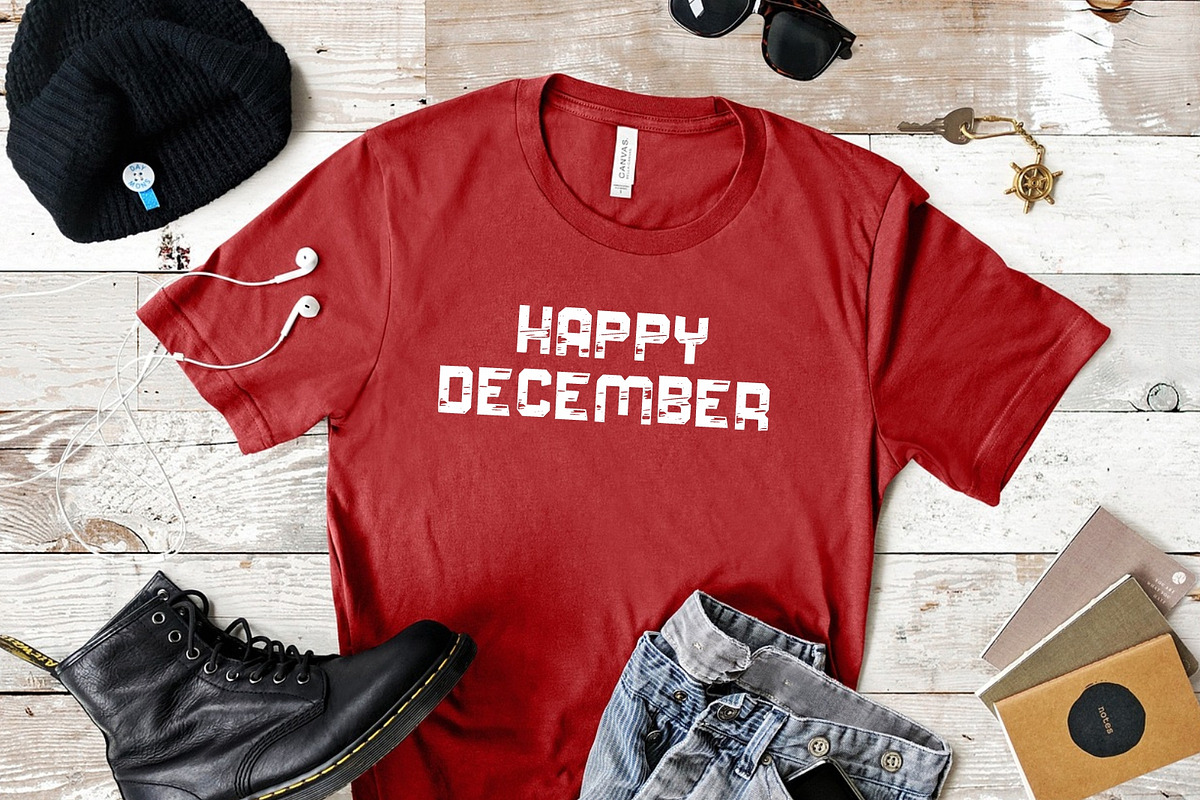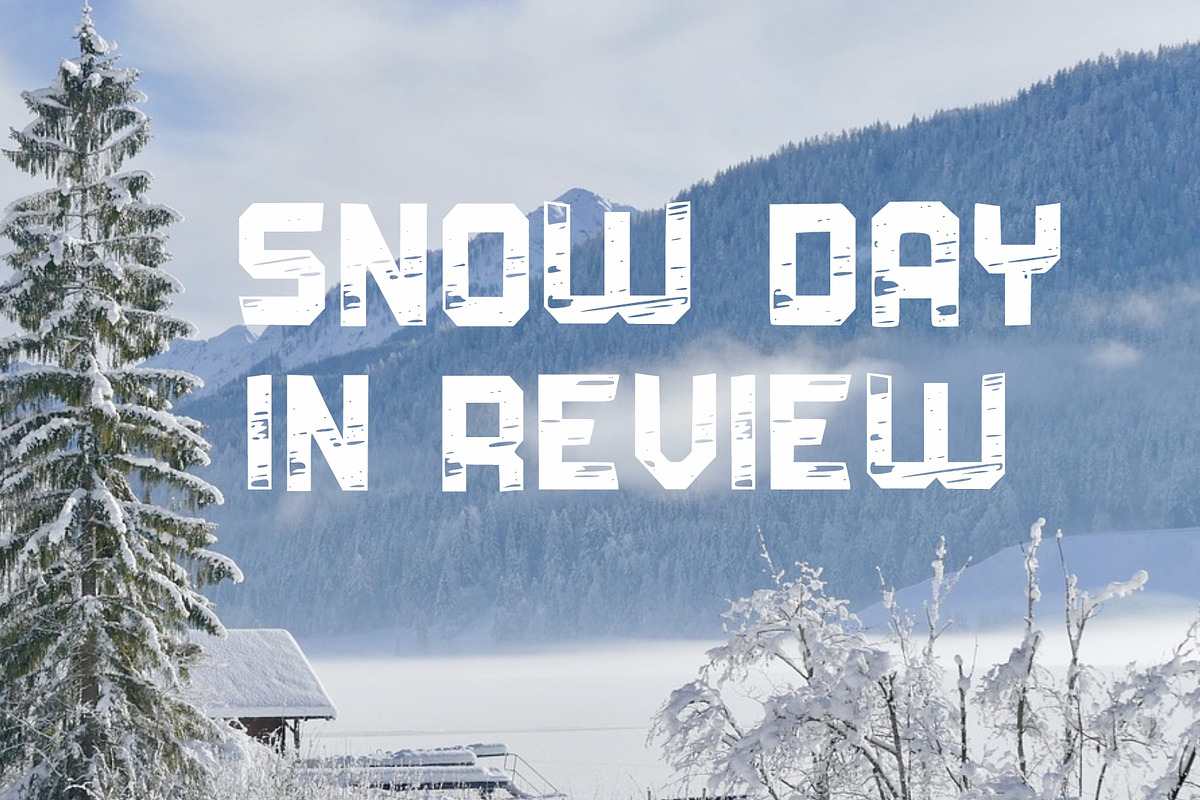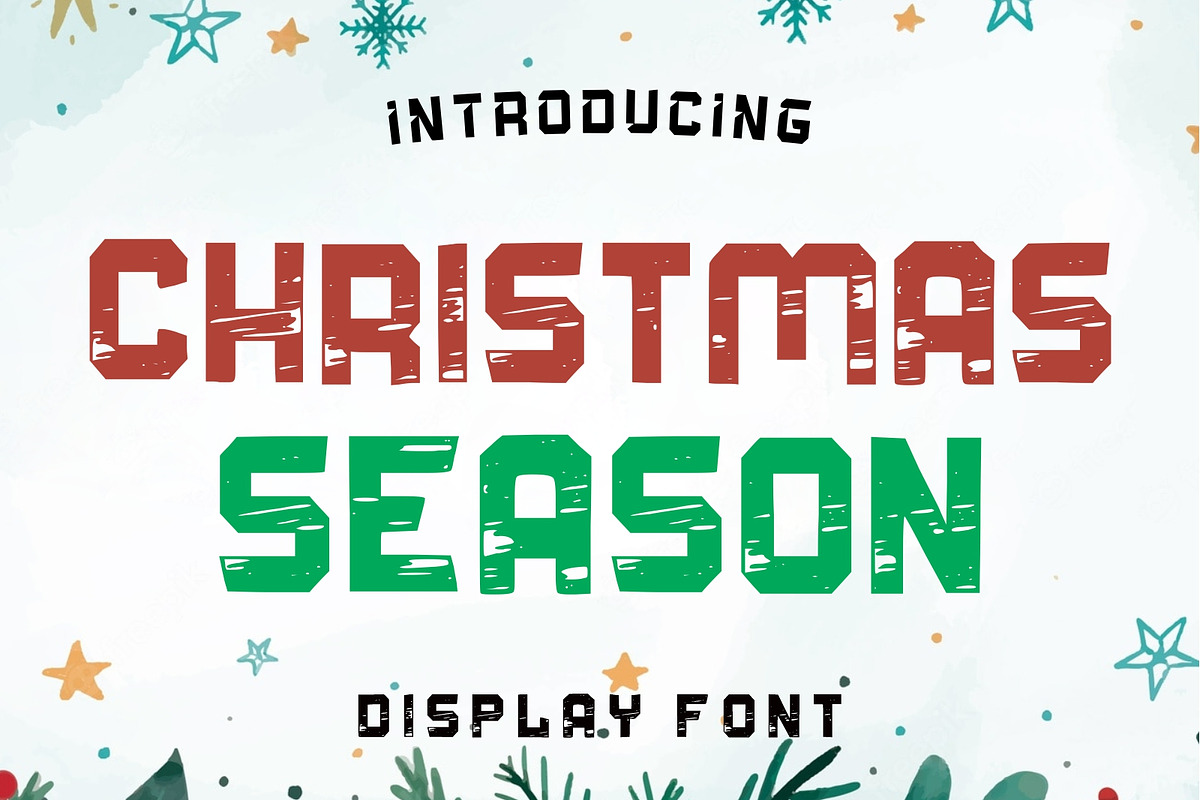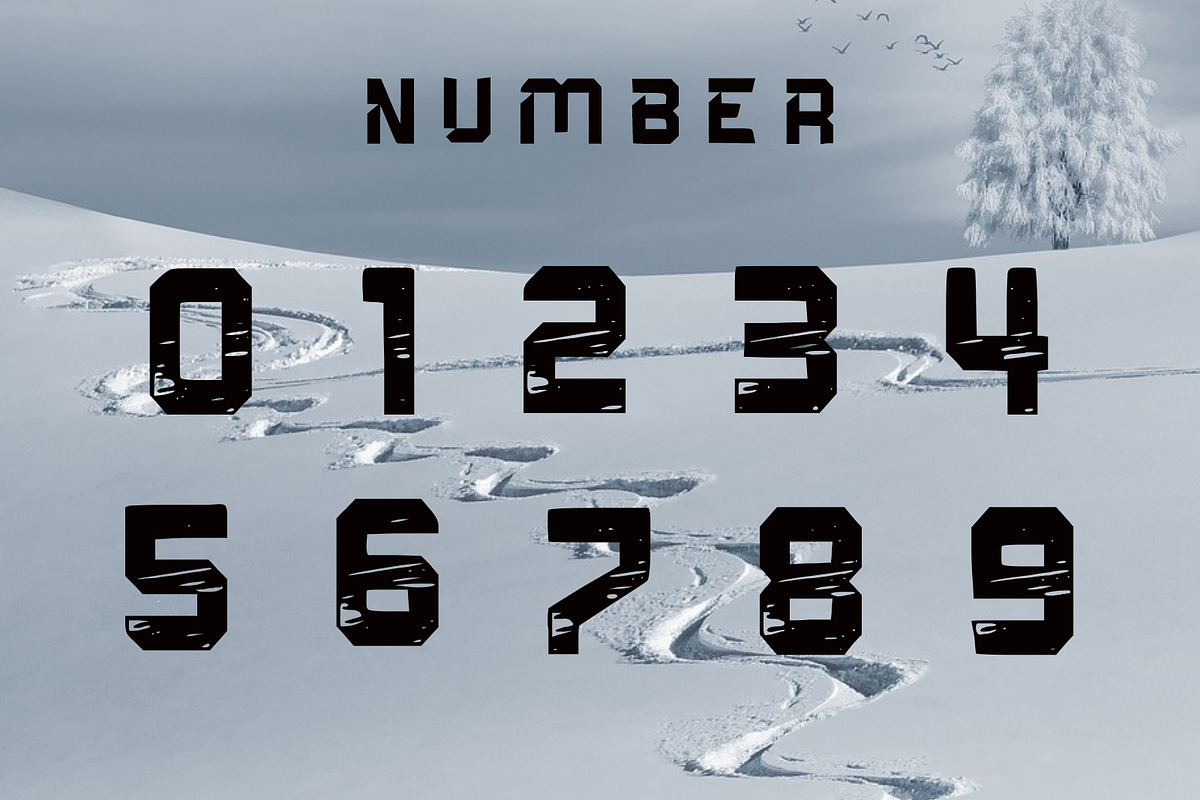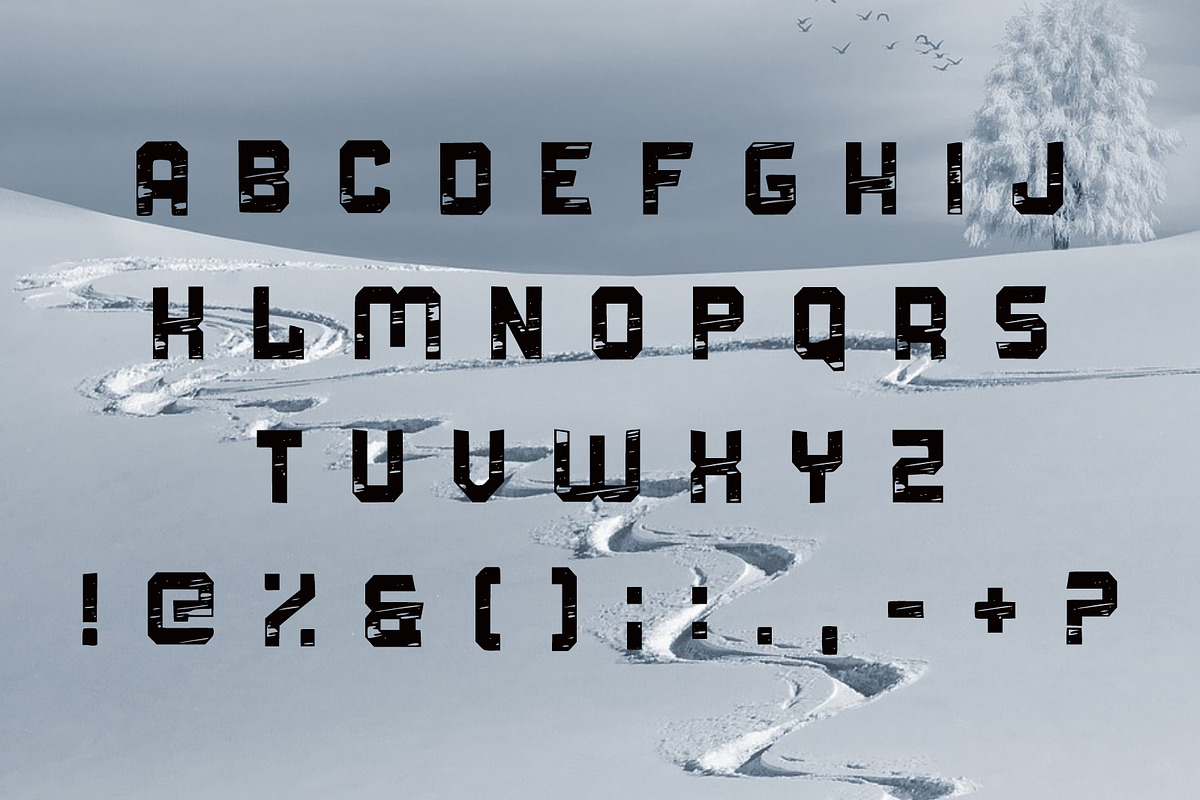
Christmas Season
Christmas Season is a crafty and snowy display font. Each of its letters is covered in snow, making it the ideal font for any winter project! It is the perfect choice for any children’s activity, Christmas, Thanksgiving, poster, etc